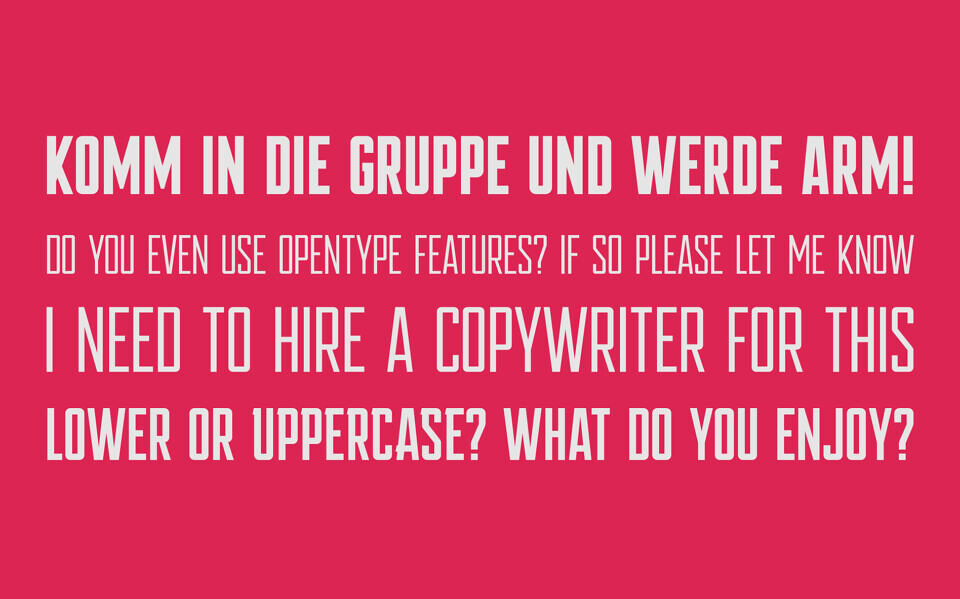
Apex Font Family
Inspired by the high-octane aesthetic of the popular multiplayer game Apex Legends, the APEX Font family delivers a bold, futuristic typographic experience. Emulating the game’s iconic, sharp-angled logo, this typeface features dynamic stencil cuts, heavy block forms, and aggressive geometry.
As a variable font, it offers seamless flexibility, allowing designers to tweak weight, width, and slant for maximum impact. Perfect for esports, streaming graphics, and action-oriented branding, APEX brings adrenaline-fueled competitive energy directly to your design projects.
Designed by: Felix's Foundry